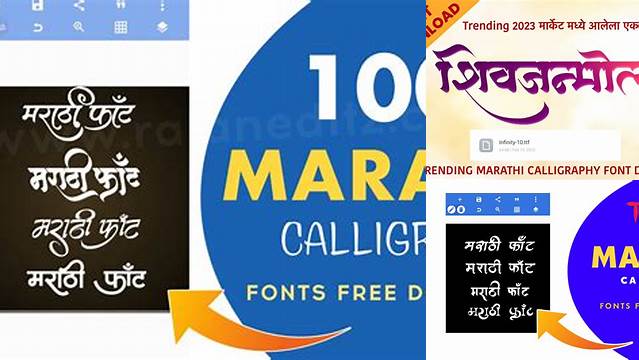
Marathi New Font: Free Download For You!
1. Understanding the Importance of Marathi Fonts
Hey guys! Let's dive into why marathi new font free download is such a hot topic. Fonts aren't just about pretty writing; they're the backbone of visual communication. When you're working on a project in Marathi, the right font can make all the difference. Think about it – a crisp, modern font can make your website look professional, while a traditional font can give your invitation a touch of authenticity. The importance of choosing the correct Marathi font cannot be overstated, especially for projects intended for the local market. Getting the right font ensures that your message is not only legible but also culturally relevant and aesthetically pleasing. Whether you're designing a poster, creating digital content, or publishing a book, selecting the correct font can significantly enhance the overall impact and effectiveness of your communication. Keep your marathi new font free download options open and explore the myriad of styles available to find the perfect fit for your specific needs.
5. Exploring Different Styles of Marathi Fonts Available
When you're on the hunt for that marathi new font free download, you'll notice there's a HUGE variety of styles. From traditional calligraphy-inspired fonts to modern sans-serif options, the choices can be overwhelming! Think about the tone and purpose of your project. A wedding invitation might call for an elegant, flowing script, while a tech blog might benefit from a clean, minimalist font. Exploring different font styles allows you to create visual interest and enhance the overall aesthetic appeal of your designs. Consider the legibility of the font, especially when using it for body text or smaller sizes. Experiment with different font weights, sizes, and spacing to achieve the desired effect. Take inspiration from various sources, such as traditional Marathi typography, contemporary design trends, and cultural references. By exploring different styles, you can find the perfect font that aligns with your project's goals and resonates with your target audience. Dive into the world of Marathi fonts and unleash your creativity!
8. Troubleshooting Common Font Installation Problems
Sometimes things go wrong, right? If your marathi new font free download isn't showing up after installation, don't panic! First, make sure the font file isn't corrupted. Try downloading it again from a different source. Second, restart your computer. This often fixes font cache issues. Third, check if the application you're using supports the font. Some older programs might not recognize newer font formats. When troubleshooting font installation issues, it is important to systematically address potential causes to identify the root of the problem. Begin by verifying the integrity of the font file, ensuring that it is not corrupted or incomplete. Try reinstalling the font or downloading it from a different source. Next, restart your computer to clear the font cache and refresh the system's font registry. Confirm that the application you are using supports the font format and that the font is properly activated within the application's settings. If the issue persists, consult the application's documentation or seek assistance from online forums or communities specializing in font-related issues. By following a methodical approach, you can effectively troubleshoot common font installation problems and ensure that your new Marathi font is properly installed and available for use.
9. Using Marathi Fonts in Microsoft Word
Microsoft Word is a staple for many, so knowing how to use your marathi new font free download here is essential. Once the font is installed, open Word and select the font from the font dropdown menu. If you don't see it, try restarting Word. Also, make sure your keyboard layout supports Marathi characters. Word's formatting options allow you to customize the appearance of your Marathi text, including size, color, and alignment. Using Marathi fonts in Microsoft Word enables you to create professional-looking documents, reports, and presentations in the Marathi language. Explore the various formatting options available in Word to enhance the visual appeal and readability of your text. Consider using different font styles and sizes to emphasize important points or create a hierarchy of information. With the right Marathi font and formatting, you can effectively communicate your message and engage your audience in a meaningful way. Experiment with different font combinations and layouts to achieve the desired aesthetic and functional outcome.
10. Using Marathi Fonts in Adobe Photoshop
For design work, Adobe Photoshop is the go-to. Using your marathi new font free download in Photoshop is pretty straightforward. Select the Type tool, choose your Marathi font from the font menu, and start typing! Photoshop offers a ton of options for customizing your text, like adding effects, adjusting the kerning, and changing the color. Using Marathi fonts in Adobe Photoshop empowers you to create stunning visuals, graphics, and designs that incorporate the beauty and richness of the Marathi language. Experiment with different typography techniques, such as text masking, text wrapping, and text effects, to add depth and visual interest to your creations. Explore the various blending options and filters available in Photoshop to enhance the appearance of your Marathi text and seamlessly integrate it into your designs. Whether you're designing posters, social media graphics, or website banners, using Marathi fonts in Photoshop allows you to communicate your message effectively and captivate your audience.
11. Marathi Font Styles: Serif vs. Sans-Serif
When browsing for a marathi new font free download, you'll encounter serif and sans-serif fonts. Serif fonts have small decorative strokes at the ends of the letters, giving them a more traditional look. Sans-serif fonts are cleaner and more modern. Serif fonts are often used for body text because they're easier to read in large blocks, while sans-serif fonts are great for headlines and titles. Serif fonts exude a sense of tradition, elegance, and formality, making them suitable for projects that require a classic and sophisticated touch. Their decorative strokes add visual interest and enhance readability, particularly in printed materials. Sans-serif fonts, on the other hand, convey a sense of modernity, simplicity, and clarity, making them ideal for digital displays, headlines, and branding materials. Their clean lines and minimalist design provide a contemporary and streamlined look. When selecting a Marathi font style, consider the tone, purpose, and target audience of your project to ensure that the font aligns with your design goals and effectively communicates your message.
12. The Best Marathi Fonts for Headlines
Headlines need to grab attention, so the right marathi new font free download is crucial. Bold sans-serif fonts often work best for headlines because they're easy to read and stand out. Look for fonts with a strong, clear design. Also, consider the overall aesthetic of your project. A modern headline font might clash with a traditional design. The best Marathi fonts for headlines are those that possess a combination of boldness, clarity, and visual appeal. Look for fonts with strong letterforms, ample spacing, and a design that commands attention. Sans-serif fonts are often preferred for headlines due to their clean lines and modern aesthetic, but serif fonts can also be effective when used strategically. Experiment with different font weights, sizes, and styles to find the perfect font that captures the essence of your message and draws the reader's eye. Consider the overall design context and ensure that the headline font complements the other elements of your project.
13. The Best Marathi Fonts for Body Text
Readability is key for body text, so choose your marathi new font free download wisely. Serif fonts are generally preferred for body text because the serifs help guide the eye across the page. Look for fonts with a clear, simple design and adequate spacing. Avoid overly decorative fonts, as they can be difficult to read in large blocks. The best Marathi fonts for body text are those that prioritize legibility, clarity, and readability. Serif fonts are often favored for body text due to their traditional aesthetic and enhanced readability in large blocks of text. Look for fonts with well-defined letterforms, generous spacing, and a design that minimizes eye strain. Avoid overly decorative or stylized fonts that can detract from the reading experience. Consider the overall design context and ensure that the body text font complements the other elements of your project. By prioritizing readability, you can ensure that your Marathi text is accessible and engaging for your audience.
14. How to Pair Marathi Fonts Effectively
Font pairing is an art! When choosing your marathi new font free download, think about how the fonts will work together. A common strategy is to pair a serif font with a sans-serif font. For example, you might use a bold sans-serif font for the headline and a more traditional serif font for the body text. The key is to create contrast without clashing. Effective font pairing involves selecting two or more fonts that complement each other and create a harmonious visual hierarchy. A common strategy is to pair a serif font with a sans-serif font, using one for headlines and the other for body text. Consider the overall design context and ensure that the fonts align with the tone, style, and purpose of your project. Experiment with different font combinations and pay attention to details such as font weights, sizes, and spacing. By carefully selecting and pairing Marathi fonts, you can enhance the visual appeal, readability, and overall impact of your designs.
15. The Impact of Font Choice on Your Design
The font you choose can dramatically impact the look and feel of your design. A modern font can make your design look cutting-edge, while a traditional font can give it a classic feel. When considering your marathi new font free download, think about the message you want to convey and choose a font that aligns with that message. The font you choose can significantly impact the overall aesthetic, readability, and effectiveness of your design. A well-chosen font can enhance the visual appeal, convey the desired message, and create a lasting impression on your audience. Consider the tone, style, and purpose of your project when selecting a Marathi font. Experiment with different font combinations and pay attention to details such as font weights, sizes, and spacing. By understanding the impact of font choice on your design, you can make informed decisions that elevate your work and achieve your desired design goals.
16. Creating a Unique Brand Identity with Marathi Fonts
Your brand identity is how the world sees you, and fonts play a big role. Choosing a marathi new font free download that reflects your brand's personality can help you stand out. Think about brands like Coca-Cola – their unique font is instantly recognizable. A well-chosen Marathi font can enhance your brand's visual identity and create a cohesive and memorable brand experience. Consider the tone, style, and values of your brand when selecting a Marathi font. Experiment with different font combinations and pay attention to details such as font weights, sizes, and spacing. Ensure that your font choices align with your overall brand strategy and resonate with your target audience. By strategically using Marathi fonts, you can create a unique and impactful brand identity that sets you apart from the competition.
17. Designing Websites with Free Marathi Fonts
Websites need to be readable and visually appealing. When selecting a marathi new font free download for your website, consider factors like screen resolution, font size, and browser compatibility. Choose fonts that are easy to read on screens and that load quickly to avoid slowing down your site. Designing websites with free Marathi fonts requires careful consideration of factors such as readability, visual appeal, and performance. Choose fonts that are optimized for screen display and that load quickly to minimize page load times. Consider the overall design context and ensure that the fonts align with your brand identity and website aesthetic. Experiment with different font combinations and pay attention to details such as font weights, sizes, and spacing. By strategically using free Marathi fonts, you can create a website that is both visually engaging and user-friendly.
18. Designing Mobile Apps with Free Marathi Fonts
Mobile apps have limited screen space, so font choice is even more critical. When you look for a marathi new font free download for your app, prioritize readability and legibility. Choose fonts that are easy to read on small screens and that work well in different lighting conditions. Designing mobile apps with free Marathi fonts requires careful consideration of factors such as screen size, resolution, and user experience. Choose fonts that are optimized for mobile display and that provide excellent readability on small screens. Consider the overall design context and ensure that the fonts align with your app's brand identity and target audience. Experiment with different font combinations and pay attention to details such as font weights, sizes, and spacing. By strategically using free Marathi fonts, you can create a mobile app that is both visually appealing and user-friendly.
19. Creating Social Media Graphics with Marathi Fonts
Social media is all about visuals, so your graphics need to pop. Using a striking marathi new font free download can help your social media posts stand out. Choose fonts that are eye-catching and that reflect your brand's personality. Also, consider the platform you're posting on. A font that looks great on Instagram might not work as well on Twitter. Creating social media graphics with Marathi fonts allows you to connect with your audience on a personal level and effectively communicate your message. Choose fonts that are visually appealing, easy to read, and align with your brand's identity. Consider the platform you're posting on and adapt your font choices accordingly. Experiment with different font combinations and pay attention to details such as font weights, sizes, and spacing. By strategically using Marathi fonts, you can create social media graphics that capture attention, engage your audience, and drive results.
20. Marathi Fonts for Print vs. Digital Media
Fonts behave differently in print and digital media. When selecting a marathi new font free download, consider the medium you'll be using. Fonts that look great on a screen might not print well, and vice versa. Print media often benefits from serif fonts, while digital media often uses sans-serif fonts. Choosing the right Marathi font for print versus digital media requires careful consideration of factors such as resolution, readability, and visual impact. Print media often benefits from fonts with well-defined serifs, which enhance readability and provide a classic aesthetic. Digital media, on the other hand, often favors sans-serif fonts, which are optimized for screen display and offer a clean, modern look. Consider the overall design context and ensure that your font choices align with the medium and purpose of your project. Experiment with different font combinations and pay attention to details such as font weights, sizes, and spacing. By strategically selecting Marathi fonts for print and digital media, you can ensure that your message is effectively communicated and visually appealing.
21. The Future of Marathi Typography
Typography is always evolving, and Marathi fonts are no exception. As technology advances, we can expect to see even more innovative and creative marathi new font free download options. The future of Marathi typography holds exciting possibilities as designers and developers continue to explore new ways to express the beauty and richness of the Marathi language. Expect to see advancements in font technology, such as variable fonts and responsive typography, which allow for greater flexibility and customization. Consider the cultural context and ensure that your font choices are respectful and authentic. Experiment with different font combinations and pay attention to details such as font weights, sizes, and spacing. By staying informed about the latest trends and innovations, you can leverage Marathi typography to create impactful and visually stunning designs.
22. The Importance of Kerning and Leading in Marathi Typography
Kerning (the space between letters) and leading (the space between lines) are crucial for readability. Even the most beautiful marathi new font free download can look bad if the kerning and leading are off. Pay attention to these details to ensure your text is easy to read and visually appealing. Kerning and leading play a crucial role in ensuring that Marathi text is legible, visually appealing, and effectively communicates its message. Kerning refers to the spacing between individual letters, while leading refers to the spacing between lines of text. Properly adjusting kerning and leading can significantly enhance readability, prevent awkward letter collisions, and create a harmonious visual rhythm. Pay attention to these details when working with Marathi fonts to ensure that your text is both aesthetically pleasing and easy to read. Experiment with different kerning and leading settings to find the optimal balance for your design.
23. How to Create Your Own Marathi Font
Feeling ambitious? Creating your own Marathi font is a challenging but rewarding project. You'll need specialized software and a good understanding of typography principles. But imagine the satisfaction of using a marathi new font free download that you designed yourself! Creating your own Marathi font is a complex and time-consuming process that requires a deep understanding of typography principles, design software, and the nuances of the Marathi language. Begin by researching existing Marathi fonts and identifying opportunities for innovation and improvement. Use design software such as Adobe Illustrator or Glyphs to create the individual letterforms and characters of your font. Pay careful attention to details such as stroke weight, letter spacing, and overall visual consistency. Test your font thoroughly and refine your design based on feedback from others. Once your font is complete, you can share it with the world and contribute to the rich tradition of Marathi typography.
24. Resources for Learning Marathi Typography
Want to level up your Marathi typography skills? There are tons of resources available online, including tutorials, articles, and courses. A simple search for "Marathi typography tutorial" or "marathi new font free download guide" will get you started. Take advantage of these resources to learn about font design, layout principles, and best practices. Learning Marathi typography opens up a world of creative possibilities, allowing you to express the beauty and richness of the Marathi language through visual design. Numerous resources are available online to help you develop your skills, including tutorials, articles, online courses, and design communities. Start by familiarizing yourself with the fundamentals of typography, such as letterforms, kerning, leading, and font pairing. Explore different Marathi fonts and analyze their design characteristics. Practice designing your own Marathi typography compositions and seek feedback from experienced designers. With dedication and perseverance, you can master the art of Marathi typography and create stunning visual designs.
25. Common Mistakes to Avoid When Using Marathi Fonts
Even experienced designers make mistakes. Some common pitfalls to avoid when using marathi new font free download options include using too many fonts, choosing fonts that are difficult to read, and ignoring kerning and leading. Be mindful of these mistakes and strive for clarity and simplicity in your designs. Using too many fonts in a single design can create visual clutter and distract from your message. Stick to a maximum of two or three fonts and ensure that they complement each other harmoniously. Avoid using fonts that are difficult to read, especially for body text. Choose fonts with well-defined letterforms and ample spacing to ensure readability. Pay attention to kerning and leading to optimize the spacing between letters and lines of text. By avoiding these common mistakes, you can create Marathi typography that is both visually appealing and easy to read.
26. The Cultural Significance of Marathi Fonts
Fonts aren't just about aesthetics; they also carry cultural significance. Certain Marathi fonts are associated with specific regions, traditions, or historical periods. When choosing a marathi new font free download, consider the cultural implications of your choice. The cultural significance of Marathi fonts extends beyond their aesthetic appeal, encompassing a rich history, tradition, and identity. Certain Marathi fonts are associated with specific regions, communities, or historical events, reflecting the cultural diversity of Maharashtra. When selecting a Marathi font for your design, consider the cultural context and ensure that your choice is respectful and appropriate. Research the history and significance of different Marathi fonts to gain a deeper understanding of their cultural implications. By embracing the cultural significance of Marathi fonts, you can create designs that resonate with your audience and celebrate the heritage of the Marathi language.
27. Integrating Marathi Fonts into Video Projects
Video projects often require text overlays, captions, and titles. When selecting a marathi new font free download for your video, consider factors like screen resolution, font size, and legibility. Choose fonts that are easy to read on screens and that work well with motion graphics. Integrating Marathi fonts into video projects allows you to communicate your message effectively and connect with your audience on a personal level. Choose fonts that are visually appealing, easy to read, and align with the tone and style of your video. Consider the screen resolution and aspect ratio of your video when selecting a font. Experiment with different font combinations and pay attention to details such as font weights, sizes, and spacing. By strategically using Marathi fonts, you can enhance the visual impact and engagement of your video projects.
28. Creating Multilingual Designs with Marathi Fonts
In today's globalized world, many designs need to support multiple languages. When working with marathi new font free download options, ensure they support the necessary characters and glyphs for other languages. Also, pay attention to layout and spacing to accommodate different text lengths. Creating multilingual designs with Marathi fonts requires careful planning, attention to detail, and a deep understanding of typography principles. Ensure that your chosen Marathi font supports the necessary characters and glyphs for all the languages included in your design. Pay attention to layout and spacing to accommodate different text lengths and ensure readability across languages. Consider the cultural context and ensure that your font choices are respectful and appropriate for each language. By carefully integrating Marathi fonts into multilingual designs, you can effectively communicate your message to a global audience.
29. Where to Find Inspiration for Marathi Typography
Need some creative inspiration? Look at examples of traditional Marathi calligraphy, contemporary design trends, and cultural references. Visit museums, browse design blogs, and follow talented Marathi designers on social media. Let marathi new font free download resources guide you to find typography inspiration. Finding inspiration for Marathi typography involves exploring various sources, including traditional calligraphy, contemporary design trends, and cultural references. Visit museums, galleries, and design exhibitions to see examples of Marathi typography in action. Browse design blogs, magazines, and online communities to stay up-to-date with the latest trends and innovations. Follow talented Marathi designers on social media for a daily dose of inspiration. By actively seeking inspiration from diverse sources, you can spark your creativity and develop your own unique style of Marathi typography.
30. The Ethical Considerations of Using Free Marathi Fonts
Just because a font is free doesn't mean you can use it however you want. Always respect the font's license and give credit to the designer when appropriate. Using marathi new font free download options responsibly helps support the design community and ensures the continued availability of high-quality fonts. Using free Marathi fonts ethically involves respecting the rights of the font designers and adhering to the terms of their licenses. Always read and understand the license agreement before using a free font. Give credit to the font designer when appropriate and avoid using free fonts for purposes that violate the license terms. Support the design community by purchasing fonts from reputable foundries and designers. By using free Marathi fonts ethically, you can contribute to a culture of respect and collaboration within the design industry.